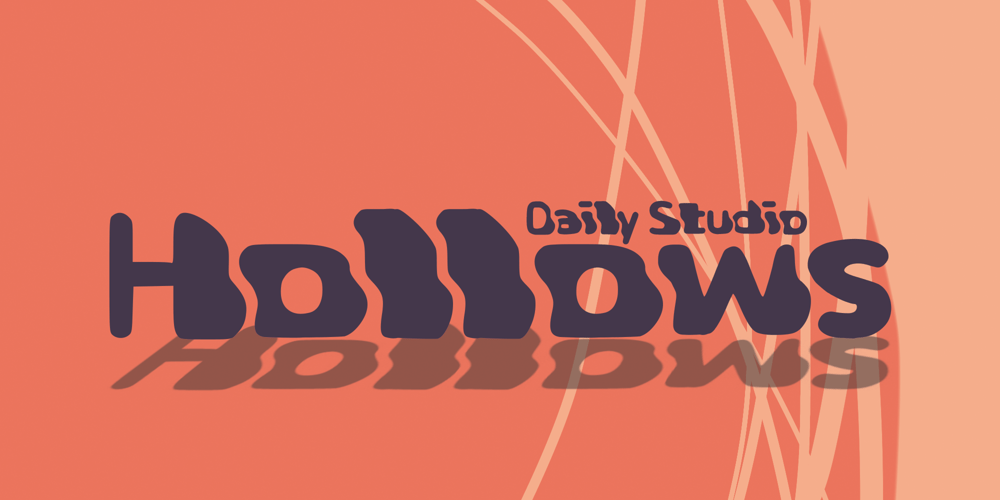
Hollows Font Family was designed by Zaizafun Hanifah and published by Daily Studio. Hollows contains 1 styles and family package options. Hollows is a display font decorated with smooth wave surfaces. This font is suitable for cards, book covers, posters, and logos. It contains full uppercase, lowercase, punctuation, and standard multilingual support. It also contains alternate styles.